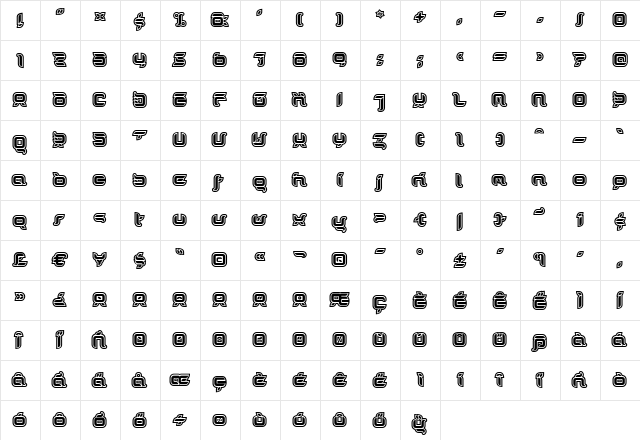
DorisOrangeOutline Medium
Design Context for DorisOrangeOutline Typeface
DorisOrangeOutline brings ornamental detail and strong personality to headlines and identities, where visual impact matters more than quiet functionality.
Font Pairing: Pair with a clean neutral sans-serif for body copy to let DorisOrangeOutline's character lead without overwhelming the composition.
Pro Tip: Treat DorisOrangeOutline as the centrepiece of your typographic hierarchy. One strong heading set in a decorative face can carry an entire layout.